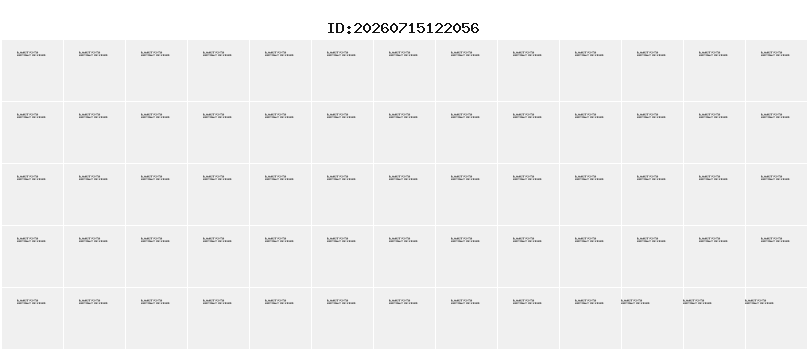
Zartz! Preview
About Zartz!.ttf
Zartz!.ttf is a modern, elegant sans-serif font designed for ultimate readability and visual harmony. Perfect for branding, headlines, web design, and print materials.